Have you ever wondered how luxury brands like Dior create stunning visuals that are instantly recognizable and exude sophistication? In this how-to guide, we will show you how to elevate your branding with the Dior font using Canva. Whether you’re a seasoned designer or a novice looking to add a touch of luxury to your brand, this guide will help you achieve that coveted high-end look effortlessly. Let’s dive in and start creating!
– Understanding the Importance of Luxury Branding
When it comes to luxury branding, it is crucial to remember that it is not just about the product or service itself. Luxury branding encompasses a whole experience that goes beyond the tangible item being sold. It is about creating a perception of exclusivity, prestige, and quality that sets a brand apart from its competitors.
By investing in luxury branding, a company can establish itself as a leader in its industry and attract a specific target market willing to pay a premium for the brand. This type of branding can also help build brand loyalty, as customers are more likely to remain loyal to a brand that they perceive as luxurious and high-end. Furthermore, luxury branding can help increase a company’s perceived value and ultimately its profitability.
– Utilizing the Elegance of the Dior Font
The Dior font is renowned for its elegance, sophistication, and luxury. By incorporating this iconic typeface into your designs, you can elevate the aesthetic appeal and convey a sense of exclusivity. Whether you’re creating a branding package, advertisement, or invitation, the Dior font adds a touch of refinement that sets your work apart from the rest.
When utilizing the Dior font, it’s essential to consider the context and purpose of your design. The elegance of this font works well for high-end fashion labels, beauty products, and luxury events. Pair it with sleek, minimalist layouts and complementary color schemes to enhance its visual impact. Additionally, experiment with various weights and styles to find the perfect balance for your project.
– Tips for Incorporating Dior Font in Canva Designs
When using the Dior font in your Canva designs, it’s important to keep a few key tips in mind to ensure that your visuals are cohesive and eye-catching. One way to incorporate this elegant font is by pairing it with a simple sans-serif font for balance. This creates a harmonious look that is both stylish and easy to read. Additionally, experimenting with different font sizes and weights can help you create hierarchy in your design, drawing attention to key elements.
Another tip for incorporating the Dior font in Canva designs is to play with spacing and alignment. Utilizing ample white space around your text can help it stand out and give your design a clean, sophisticated look. Additionally, consider experimenting with text alignment options such as center, justified, or right-aligned to create visual interest. Remember, the key to using the Dior font effectively is to be intentional and thoughtful in your design choices.
– Creating Consistent Branding with Dior Font
Dior font is an essential element in creating consistent branding for your business or personal projects. With its elegant and timeless design, the Dior font can help convey a sense of sophistication and luxury. By using this font consistently across all your branding materials, such as logos, websites, and marketing collateral, you can establish a strong visual identity that resonates with your target audience.
One of the key benefits of using the Dior font for your branding is its versatility. Whether you’re aiming for a classic and refined look or a modern and chic aesthetic, this font can be easily tailored to suit your needs. Pairing the Dior font with complementary colors and graphics can further enhance the overall branding message you want to convey. Consistency in using this font across different platforms and touchpoints can help reinforce brand recognition and build credibility with your audience.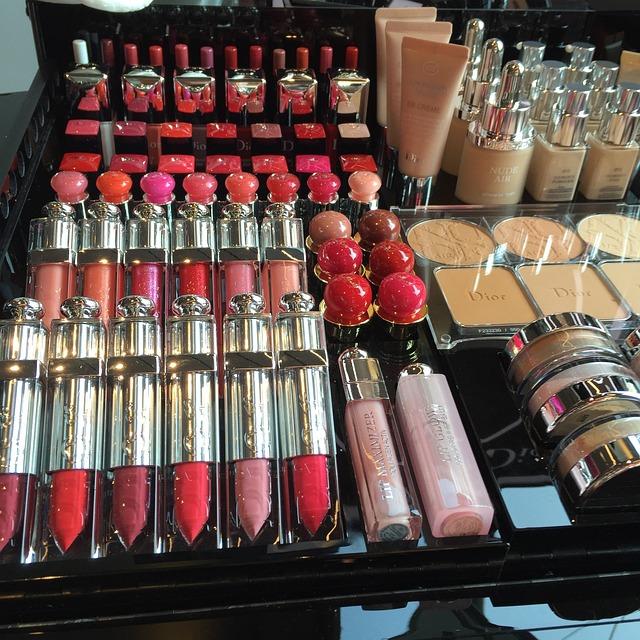
– Enhancing Brand Recognition with Dior Font
When it comes to enhancing brand recognition, choosing the right font can make a significant impact. Dior font is a timeless, elegant choice that can elevate your brand’s image and make it stand out from the competition. With its sleek and sophisticated design, Dior font exudes luxury and sophistication, making it perfect for high-end brands looking to make a statement.
By using Dior font in your branding materials, you can instantly convey a sense of exclusivity and class to your target audience. Whether you’re designing a logo, packaging, or marketing materials, Dior font can help create a cohesive and memorable brand identity that resonates with your customers. Investing in Dior font is not just about choosing a typeface – it’s about investing in the perception of your brand and creating a lasting impression that sets you apart from the rest.
Q: How can luxury branding with Dior font in Canva benefit my business?
A: Luxury branding with Dior font in Canva can help create a premium and exclusive perception of your brand, attracting high-end clientele and setting you apart from competitors.
Closing Remarks
In conclusion, using the Dior font on Canva can elevate your branding to a luxurious level, giving your designs a sophisticated and high-end look.